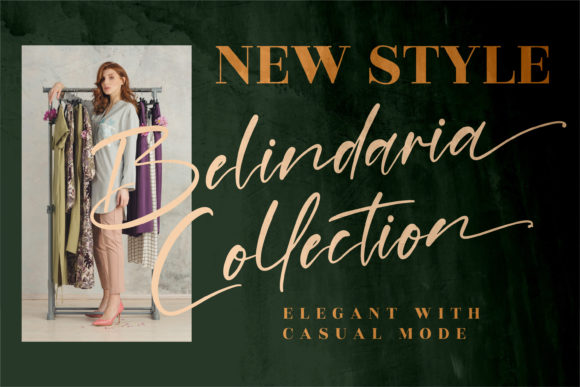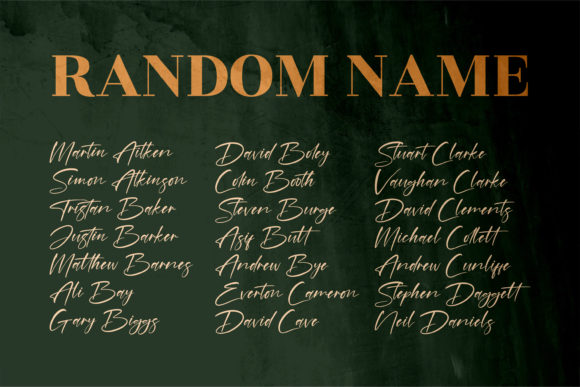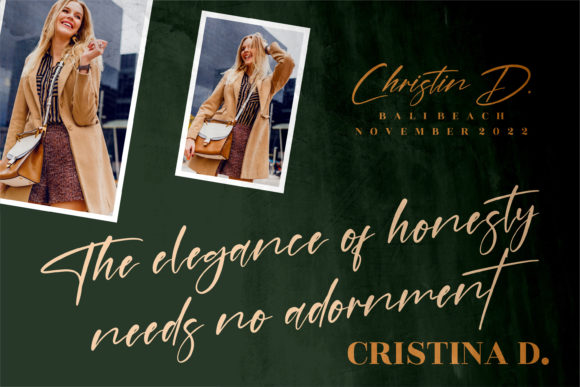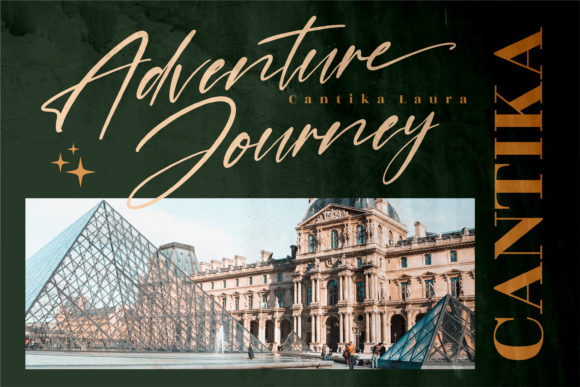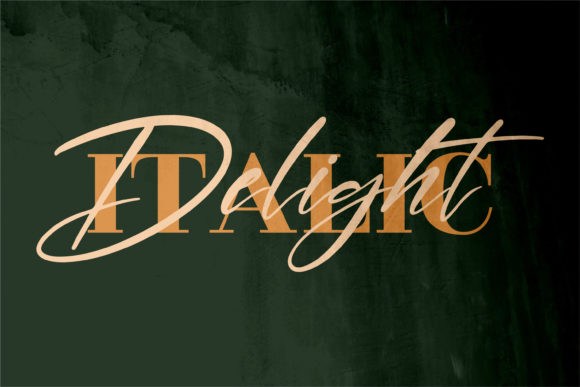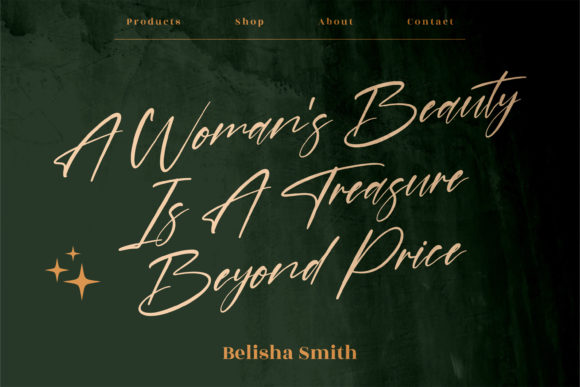
The Perfect Font to Delight Your Designs
There’s nothing quite like the feeling of stumbling upon the perfect font for a design project. You know, that moment when everything clicks into place, and the entire concept comes together in a beautiful, harmonious way. It’s like finding a needle in a haystack, but instead of a needle, it’s a gorgeous, elegant script font that elevates your design to new heights.
Enter the Delight Font, a lovely and delicate script font that exudes elegance and class. Crafted specifically for designers who crave a beautiful and refreshing look, Delight Font is the perfect solution for those seeking to add a touch of sophistication to their designs. With its PUA encoding, accessing all glyphs and swashes is a breeze, making it a valuable addition to any designer’s toolkit.
Delight Font Key Features
- Character Set: The font includes a comprehensive character set, covering Latin, Cyrillic, and Greek alphabets, as well as a range of punctuation and symbol glyphs.
- Unique Characteristics: Delight Font features a distinctive, hand-drawn style with subtle flair and elegance, making it perfect for use in creative and design-focused applications.
- Font Pairing: Delight Font is designed to pair well with a range of other fonts, including serif and sans-serif styles, making it easy to create visually appealing and harmonious typography.
Delight Font Review
Overall, I have mixed feelings about the Delight Font. While it has some great features, it also has some limitations that prevent it from being a top choice for designers.
- Playful and whimsical feel: Delight Font has a unique and charming personality that’s perfect for adding a touch of fun to designs.
- High-quality glyphs: The font has well-crafted glyphs with smooth curves and sharp edges, making it a pleasure to work with.
- Good legibility: The font is easy to read, even at smaller sizes, making it a great choice for body text.
- Limited language support: Delight Font only supports a limited number of languages, which may be a problem for designers working on international projects.
- No bold or italic versions: The font only comes in a regular weight, which may not be suitable for designs that require bold or italic text.
- Not suitable for formal designs: Delight Font’s playful feel may not be suitable for formal or professional designs, such as business reports or academic papers.
In conclusion, Delight Font is a great choice for designers who want to add a touch of fun to their designs. However, it may not be the best choice for designers who need a more versatile font that can handle a wide range of projects.
Delight Font Practical Application Guide
For a more professional look, pair the Delight Font with a clean and minimalist background design.
- Use the font to create visually appealing headings and titles.
Experiment with layer blending modes to add depth and interest to your text.
- Use the font to create engaging headings and titles.
Use the font to add a touch of elegance and sophistication to your presentations and documents.
The Delight Font is perfect for:
- Magazine and brochure design
Remember to use the font consistently throughout your design to create a cohesive and professional look.